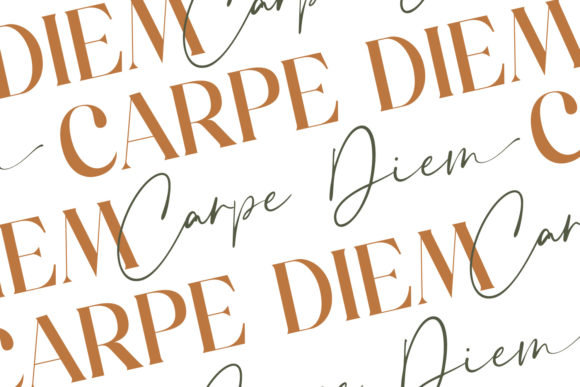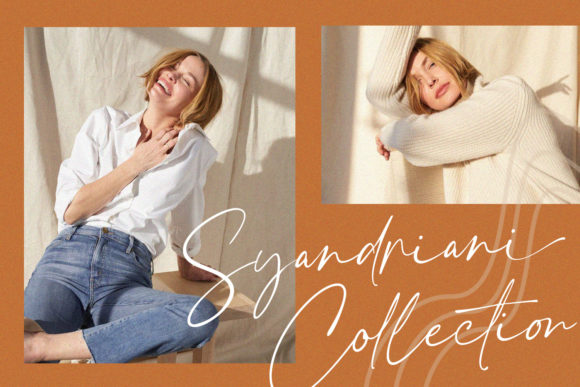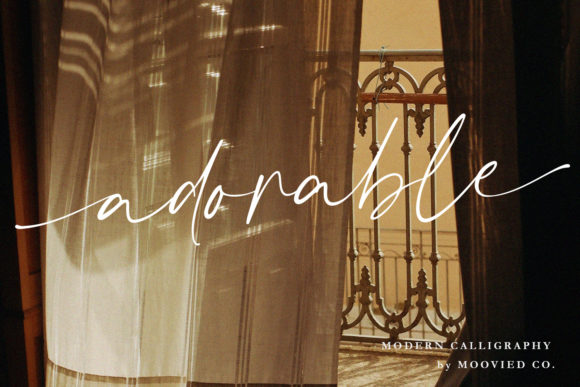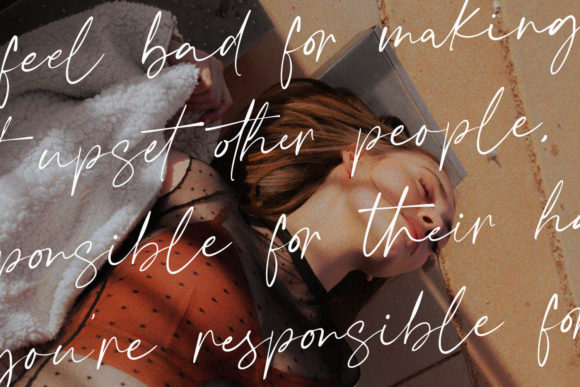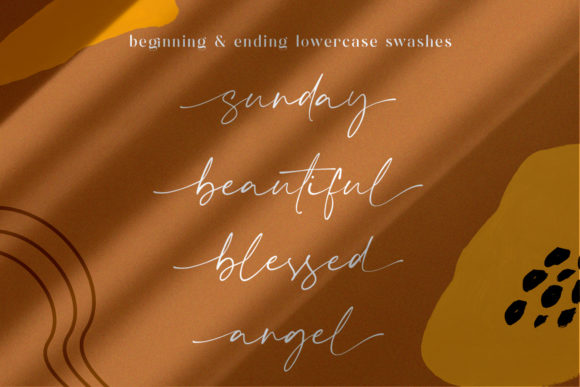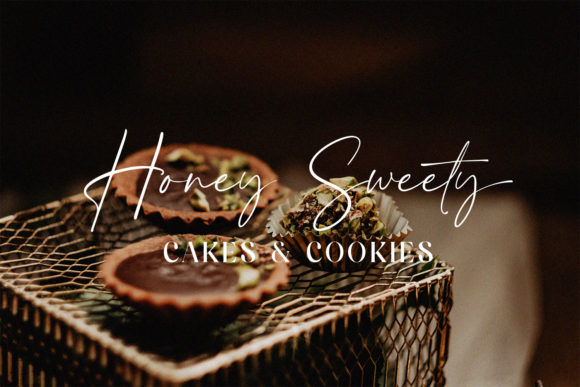
Crimson Foam Font: Elevate Your Designs with Elegance and Flair
In the world of typography, a font can make or break a design. It’s the perfect blend of form and function, aesthetics and readability. For designers and crafters looking to add a touch of sophistication and whimsy to their projects, the Crimson Foam Font is an excellent choice. This delicate, elegant, and flowing handwritten font is sure to bring a new level of refinement and charm to your creations.
The Beauty of Crimson Foam Font
Crimson Foam is a beautifully crafted font that boasts well-balanced characters, making it incredibly versatile. Its elegant flow and delicate strokes evoke a sense of luxury and refinement, perfect for designs that require a touch of sophistication. Whether you’re working on a branding project, packaging design, or a craft project, this font is sure to impress.
Key Features of Crimson Foam Font
- Delicate and Elegant: Crimson Foam’s flowing strokes and delicate lines create a sense of elegance and refinement, perfect for designs that require a touch of sophistication.
- Well-Balanced Characters: The font’s characters are carefully crafted to ensure balance and harmony, making it easy to read and visually appealing.
- Versatile: Crimson Foam’s unique yet versatile design makes it suitable for a wide range of projects, from branding and packaging to crafting and DIY projects.
- Handwritten: The font’s handwritten nature adds a personal touch to your designs, making them stand out from the crowd.
Uses for Crimson Foam Font
Crimson Foam’s versatility makes it an excellent choice for a variety of projects, including:
- Branding and Logo Design: Create a lasting impression with a custom logo that showcases your brand’s personality and style.
- Packaging Design: Add a touch of elegance to your product packaging and make it stand out on store shelves.
- Crafting and DIY Projects: Use Crimson Foam to add a personal touch to your craft projects, such as handmade cards, invitations, and scrapbooking.
- Stationery and Paper Goods: Create beautiful stationery, notebooks, and paper goods that showcase your unique style.
Tips for Using Crimson Foam Font
To get the most out of Crimson Foam, here are a few tips to keep in mind:
- Pair with Contrasting Fonts: Combine Crimson Foam with a contrasting font to create visual interest and hierarchy in your design.
- Experiment with Colors: Try pairing Crimson Foam with different colors to create a unique and eye-catching design.
- Use for Headings and Titles: Crimson Foam’s elegant design makes it perfect for headings and titles, adding a touch of sophistication to your design.
In conclusion, Crimson Foam Font is a beautiful and versatile handwritten font that can elevate your designs to new heights. Its delicate, elegant, and flowing strokes make it perfect for a wide range of projects, from branding and packaging to crafting and DIY projects. With its well-balanced characters and handwritten nature, Crimson Foam is sure to add a touch of sophistication and whimsy to your creations. So why wait? Add Crimson Foam to your font collection today and notice how it brings your designs to life!